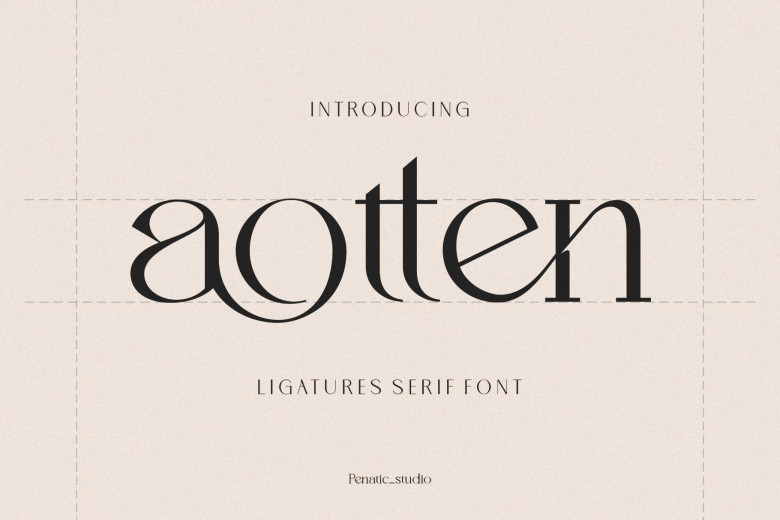
Aotten Font
Aotten is an elegant serif font that gives a feeling of elegance with its stylish ligatures. This could be an option for your project. It is very convenient to use and perfect for all of your work in sorting through letters. Starting from the branding, logos, invitations, mastheads and many others.
Aotten Serif Font